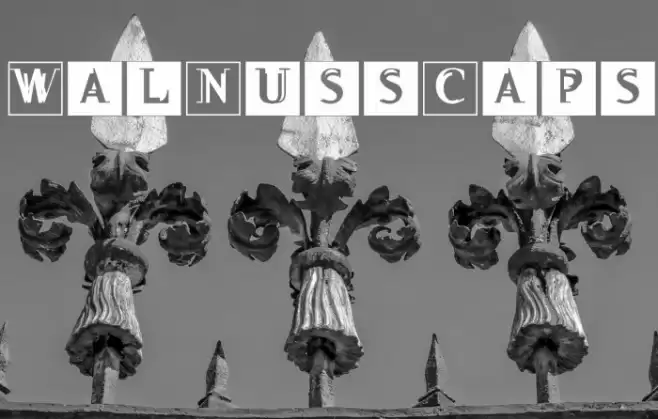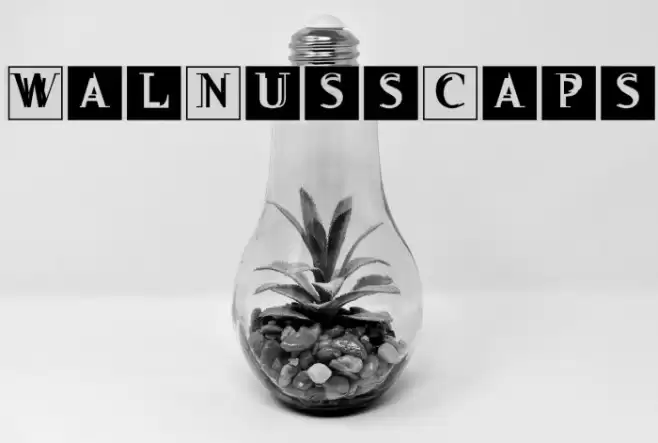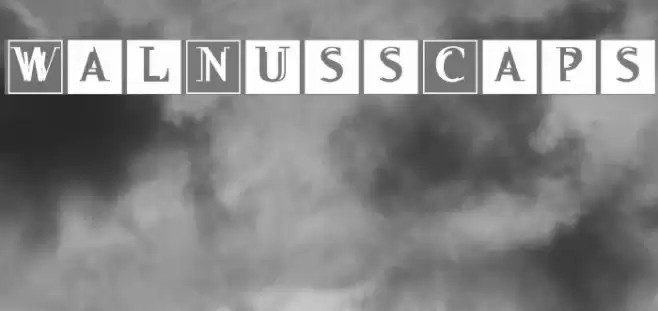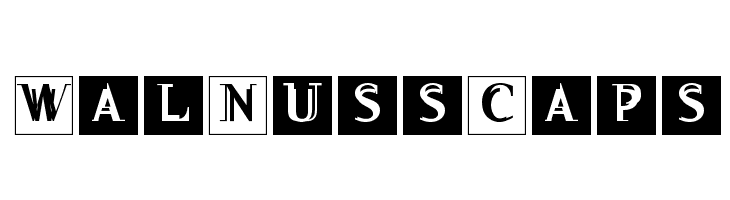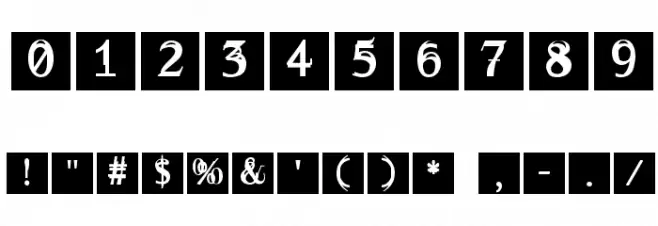
WalNussCaps Font
WalNussCaps Description
This font features a bold, decorative style with each character enclosed in a square border. The uppercase letters are prominent and have a strong presence, making them ideal for attention-grabbing designs. The characters are evenly spaced within their boxes, providing a uniform appearance. The numbers and special characters maintain the same boxed style, ensuring consistency across all elements. The font's design is reminiscent of vintage signage, offering a classic yet playful aesthetic. Its high contrast between the thick strokes of the letters and the thin lines of the borders adds to its visual impact.
A bold, decorative font with characters enclosed in square borders, ideal for vintage-themed designs from Uncategorized fonts.
- Proposed Projects: This font is perfect for projects that require a vintage or retro feel, such as posters, signage, and branding materials.
- Overall Style: Vintage